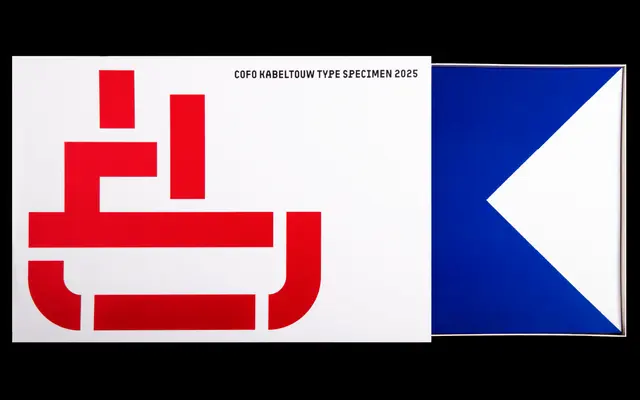
CoFo Kabeltouw
Contrast Foundry · Egor Golovyrin · 2023
A modular stencil typeface by Egor Golovyrin drawing on maritime industry aesthetics, available in four stencil grades plus a variable font axis controlling stencil openness.
Designed by Egor Golovyrin and released in 2023, CoFo Kabeltouw is built from a limited set of modules referencing shipping containers, cargo cranes, painted stencil lettering and metal pipework. Four static styles run from Solid 0 through Stencil 20, 38 and 56, with a variable font allowing continuous adjustment of stencilness to suit scale and context. The family covers Latin, Cyrillic and Greek, operates entirely in all-caps, and includes a generous range of alternates to compensate for the absence of lowercase.
A modular, all-caps stencil typeface with an industrial and maritime character; classified as display due to its strong visual identity, reduced character set and stencil construction that limits continuous text use.